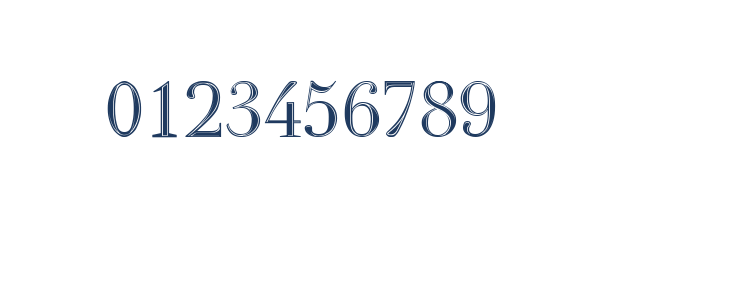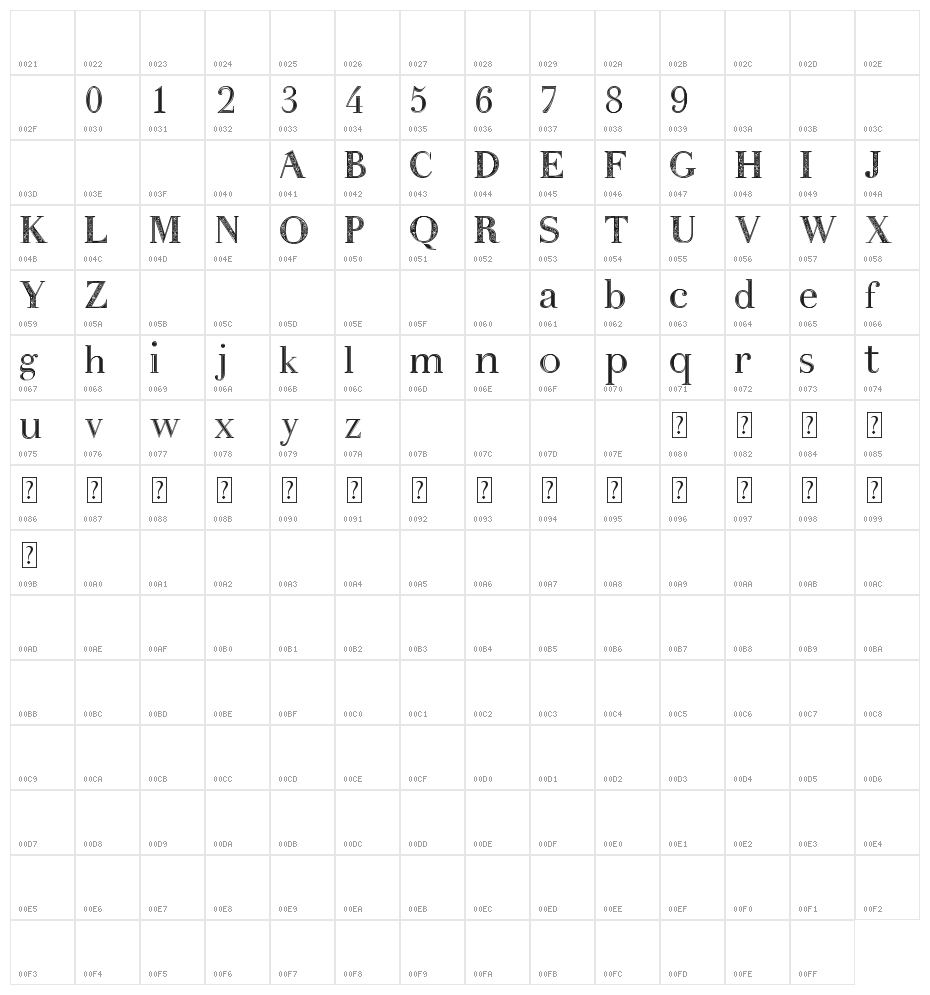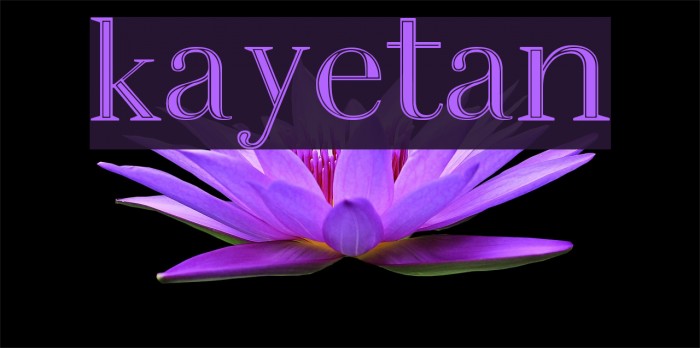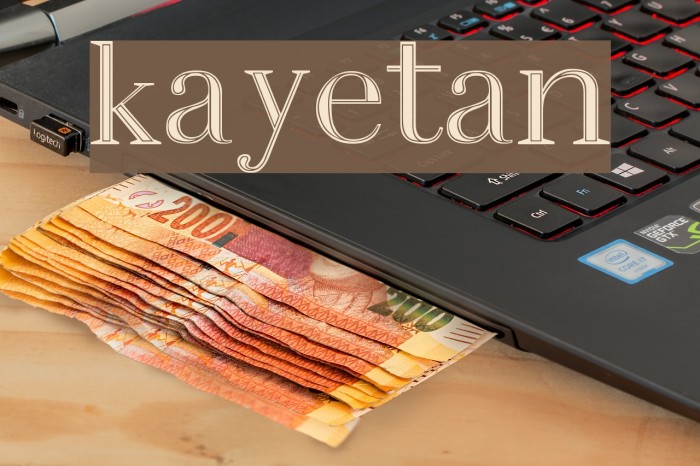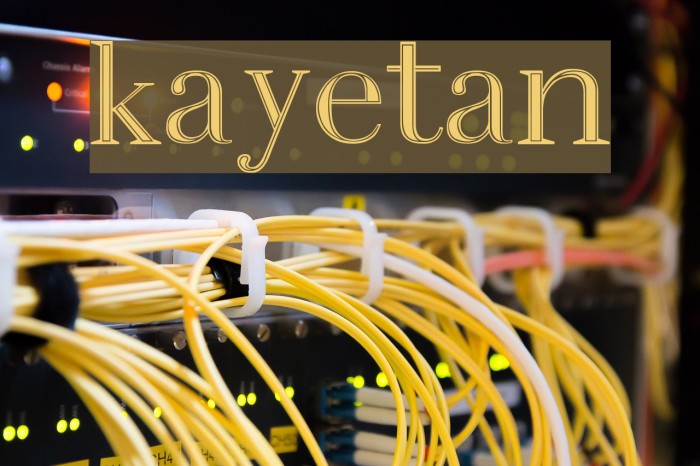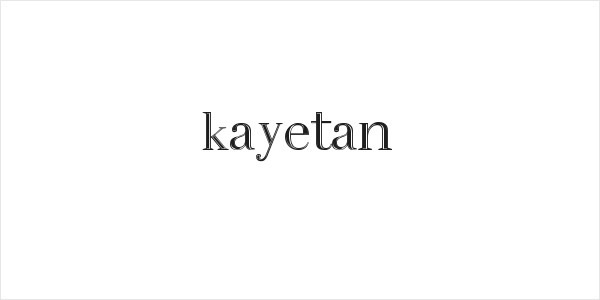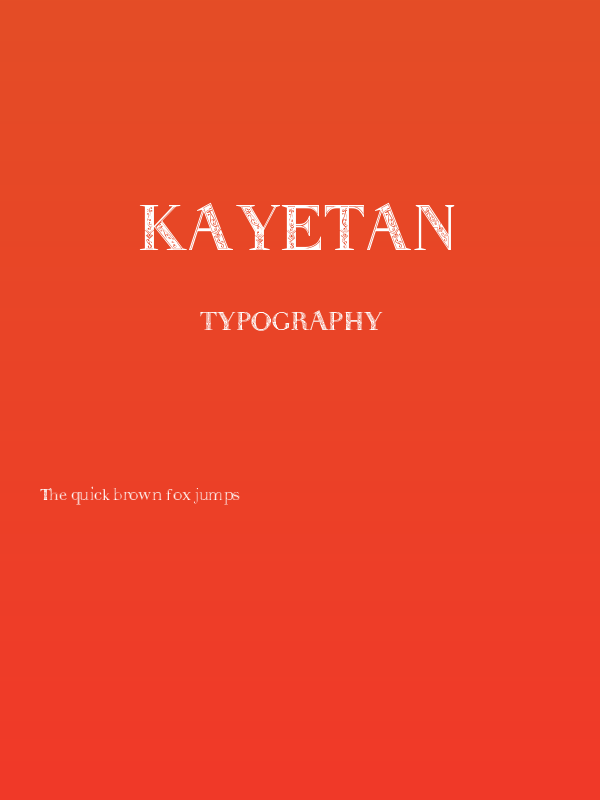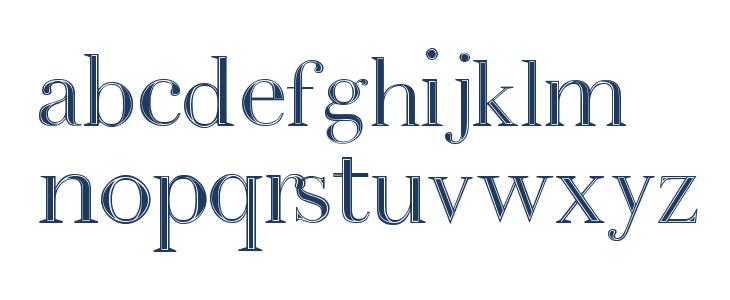
kayetan Font
kayetan Description
This font features a decorative and elegant style with intricate patterns within the letterforms. The uppercase letters are bold and striking, with detailed embellishments that add a touch of sophistication. The lowercase letters maintain a consistent design, offering a harmonious blend of style and readability. The numerals are equally ornate, providing a cohesive look across all characters. The font's unique design makes it suitable for projects that require a touch of elegance and flair, such as invitations, branding, and artistic displays.
Use CaseHeadlines, Logos, Artistic displays
Proposed ProjectsIdeal for wedding invitations, luxury branding, artistic posters, and decorative signage.